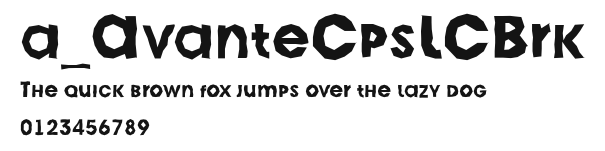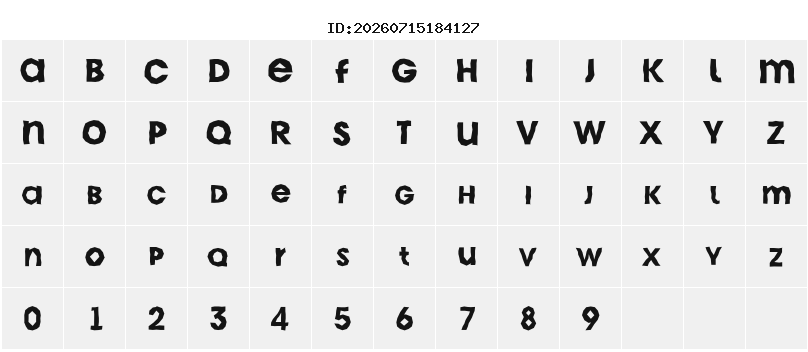
a_AvanteCpsLCBrk Preview
• Font Name: a_AvanteCpsLCBrk
• Full Font Name: a_AvanteCpsLCBrk Bold
About a_AvanteCpsLCBrk.ttf
a_AvanteCpsLCBrk.ttf is a modern, elegant sans-serif font designed for ultimate readability and visual harmony. Perfect for branding, headlines, web design, and print materials.